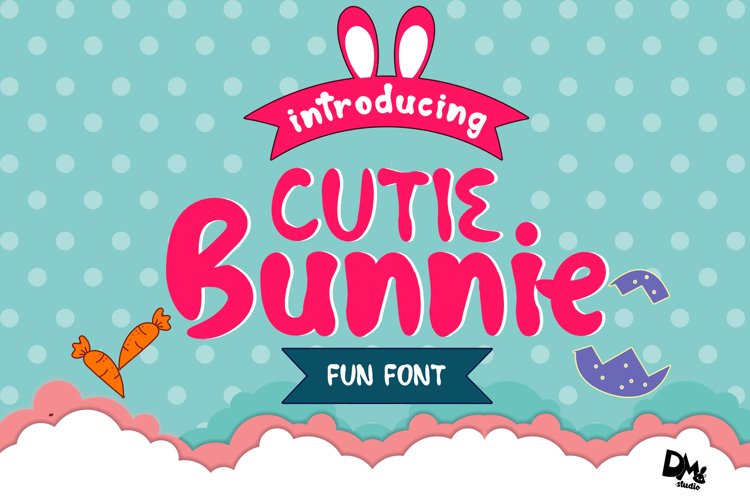
Introducing, This fun and lovely font : Cutie Bunnie !
Great for creat something which need the cute and quirky style, such as cards, kids invitation, souvenir, t-shirt, kids stuff and much more!
Comes with extra cute easter theme doodles just simply as by typing 0-9. No need any additional software!
-Standard Basic Characters : Uppercase and Lowercase
-Symbols & punctuations
-Extra Doodles 0-9